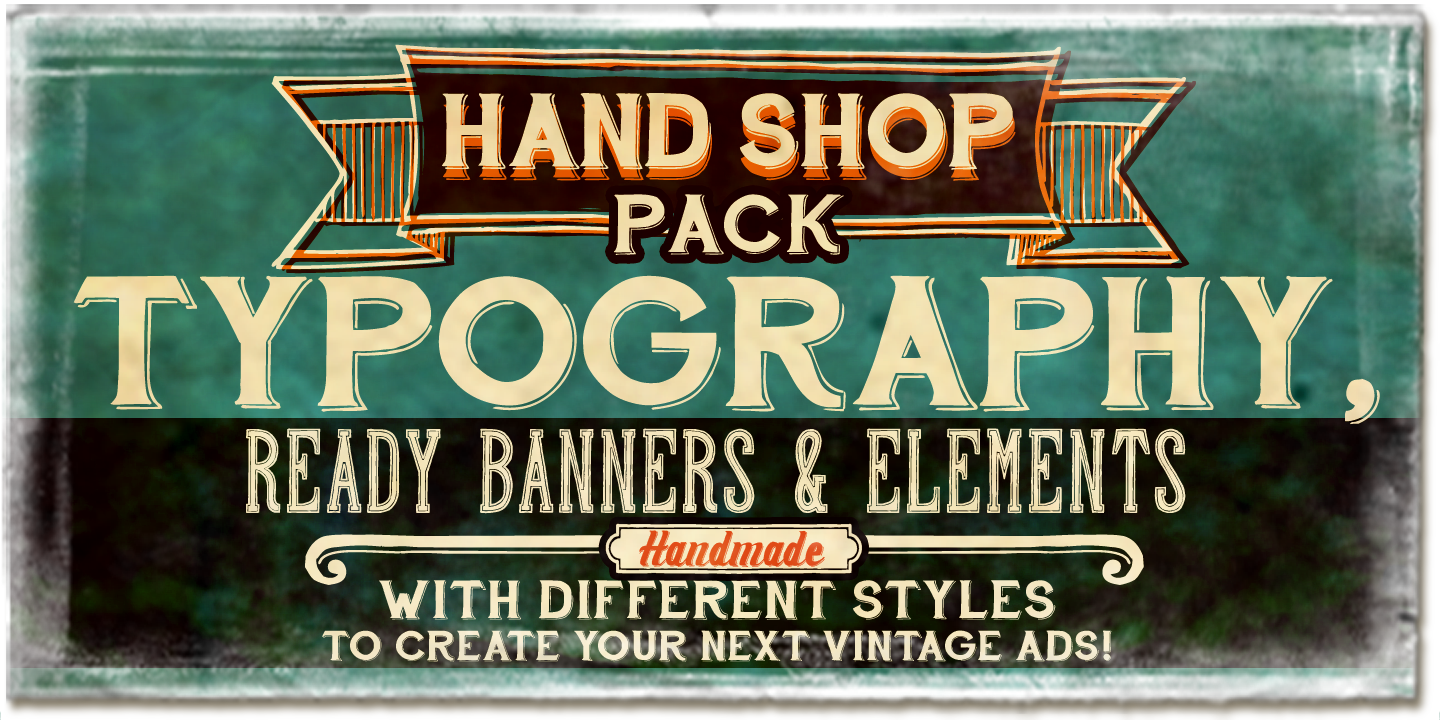
The Hand Shop Pack Font is ideal for handmade craft businesses, artisanal product packaging, boutique store signage, vintage market branding, DIY project labels, rustic wedding invitations, handcrafted jewelry tags, farmer's market displays, and authentic small business marketing materials that celebrate handmade craftsmanship.
What makes the Hand Shop Pack Font so exciting is its authentic representation of traditional hand-lettered shop signs and vintage commercial typography. This remarkable typeface collection captures the charming imperfections and genuine character of old-fashioned storefront lettering, featuring natural variations in stroke weight and baseline that give each word a unique, handcrafted personality. The font's nostalgic appeal and artisanal quality make it perfect for businesses that want to communicate authenticity, craftsmanship, and personal attention to detail in their branding and marketing materials.
The Hand Shop Pack Font family typically includes multiple font variations such as regular, bold, condensed, and decorative styles, along with complementary ornaments, banners, flourishes, and vintage design elements that provide designers with a complete toolkit for creating cohesive handmade-style branding systems.
Small business owners and creative entrepreneurs consistently choose Hand Shop Pack Font Free Download for its ability to instantly convey handmade authenticity and vintage charm. This comprehensive font package represents the perfect solution for businesses seeking to establish a genuine, approachable brand identity that resonates with customers who value traditional craftsmanship and personal service. Whether you're designing logos for artisan bakeries, creating packaging for handmade soaps, developing signage for vintage boutiques, or crafting social media graphics for craft businesses, this font collection delivers unmatched authenticity and visual appeal.
The carefully designed letterforms of the Hand Shop Pack Font showcase natural irregularities and organic textures that replicate the look of hand-painted signs and vintage lettering. The thoughtful character spacing and baseline variations ensure that text maintains excellent readability while preserving the font's distinctive handcrafted appearance and rustic charm.
Artisanal business owners and vintage design enthusiasts appreciate the font's versatility and comprehensive nature, which includes not only multiple typeface options but also decorative elements that can be mixed and matched to create unique design combinations for various applications.
For entrepreneurs and businesses seeking to differentiate themselves in today's market through authentic, handcrafted branding, the Hand Shop Pack Font offers an exceptional typography solution. Its vintage aesthetic and artisanal quality make it particularly suitable for craft breweries, handmade goods retailers, vintage clothing stores, and local businesses that pride themselves on traditional values and personal customer relationships.